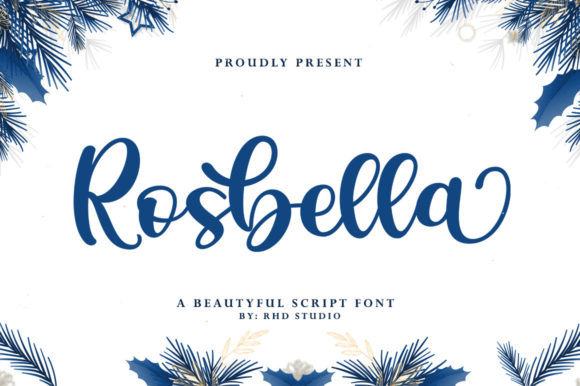
Unleash the elegance and charm of Rosbella Font, a captivating script typeface that will transform your creative projects into breathtaking works of art. With its enchanting, playful characters that dance along the baseline, Rosbella adds a touch of magic to every word, making it the perfect choice for those seeking a font that exudes sophistication and beauty.
Imagine your wedding invitations adorned with Rosbella's graceful strokes, inviting guests to a celebration filled with love and joy. Its delicate curves and flowing lines evoke a sense of timeless romance, capturing the essence of your special day. With Rosbella, your wedding stationery will become a cherished keepsake, a tangible memory of the love and commitment you share.
Beyond wedding banners, Rosbella's versatility extends to a myriad of creative endeavors. Craft stunning logos that exude elegance and professionalism, or design eye-catching posters and flyers that demand attention. Let Rosbella's charm shine through in your social media posts, captivating your audience with its timeless appeal.
With Rosbella Font, you have the power to transform ordinary words into exquisite works of art. Its enchanting characters will add a touch of magic to your creative projects, captivating your audience and leaving a lasting impression. Embrace the beauty of Rosbella and unlock the limitless possibilities it holds.